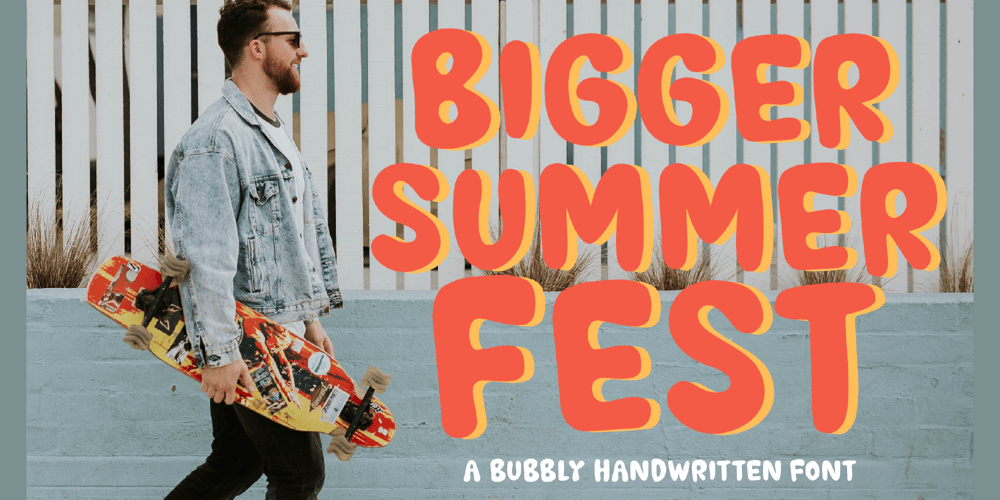
Bigger Summer Fest Font Family was designed by Heru Utama Putra and published by Letterena Studios. Bigger Summer Fest contains 2 styles and family package options. Bigger Summer Fest is a bubbly handwritten font with a unique style and modern look. It is perfect for elegant and luxury logos, book or movie titles, fashion brands, magazines, clothes, lettering, quotes, and many more.**Uppercase